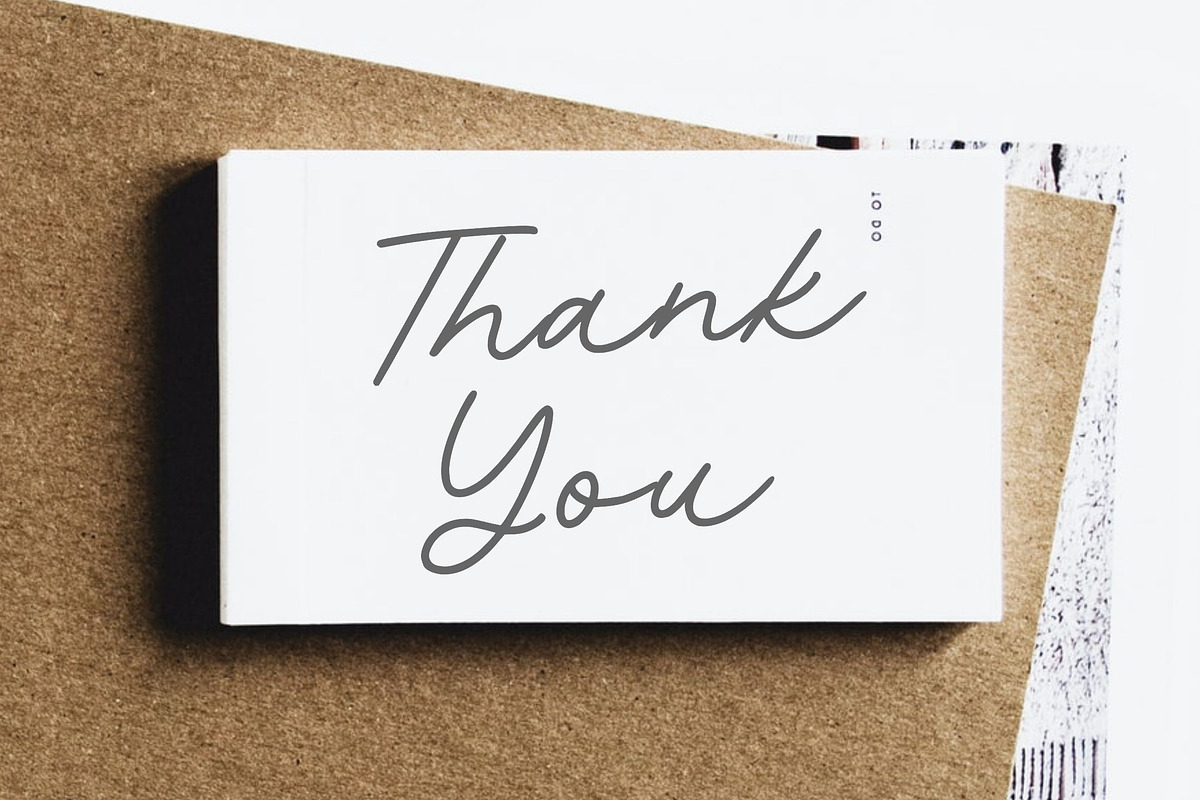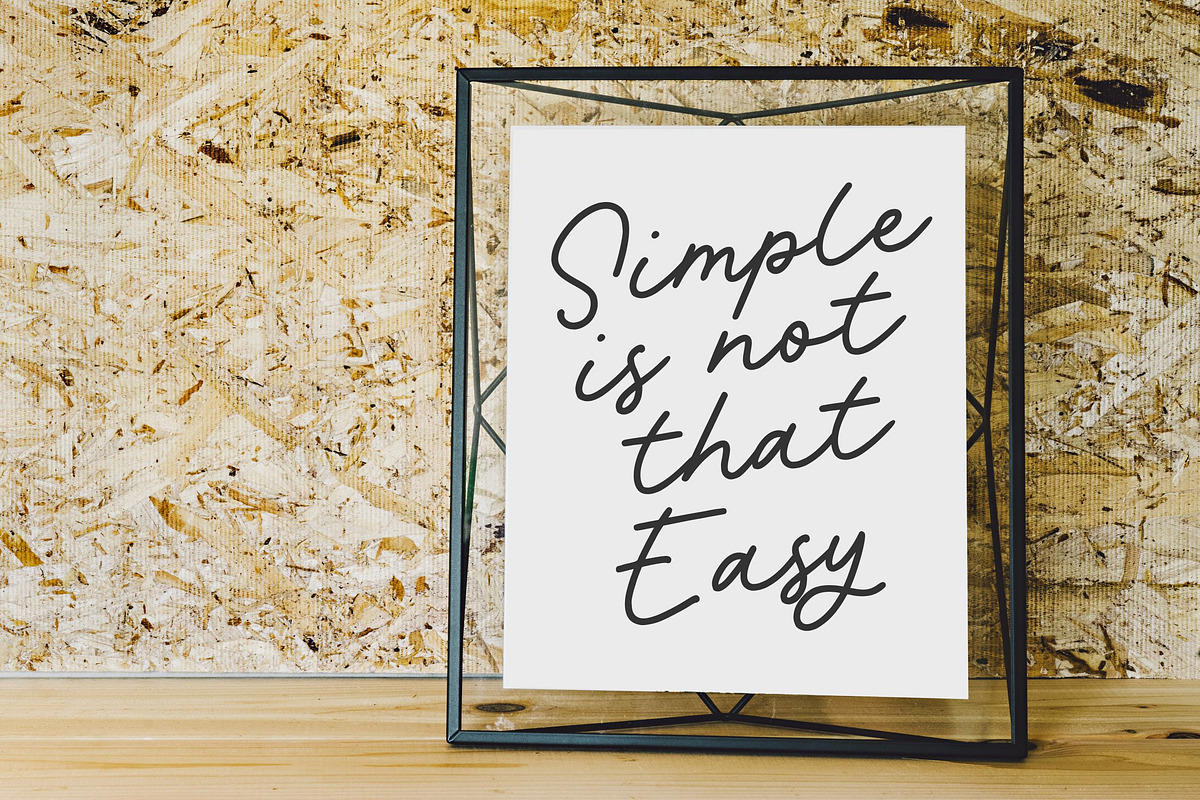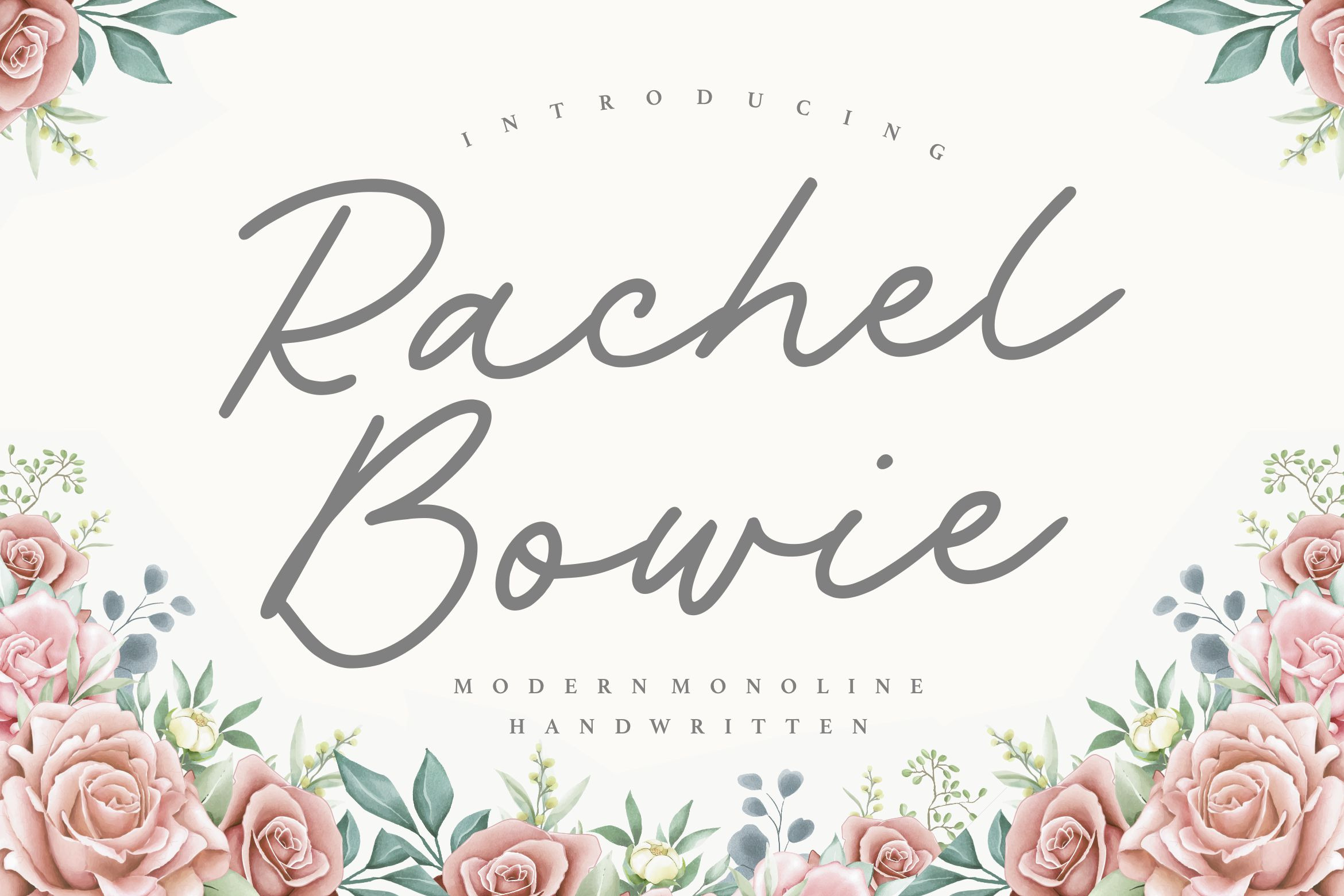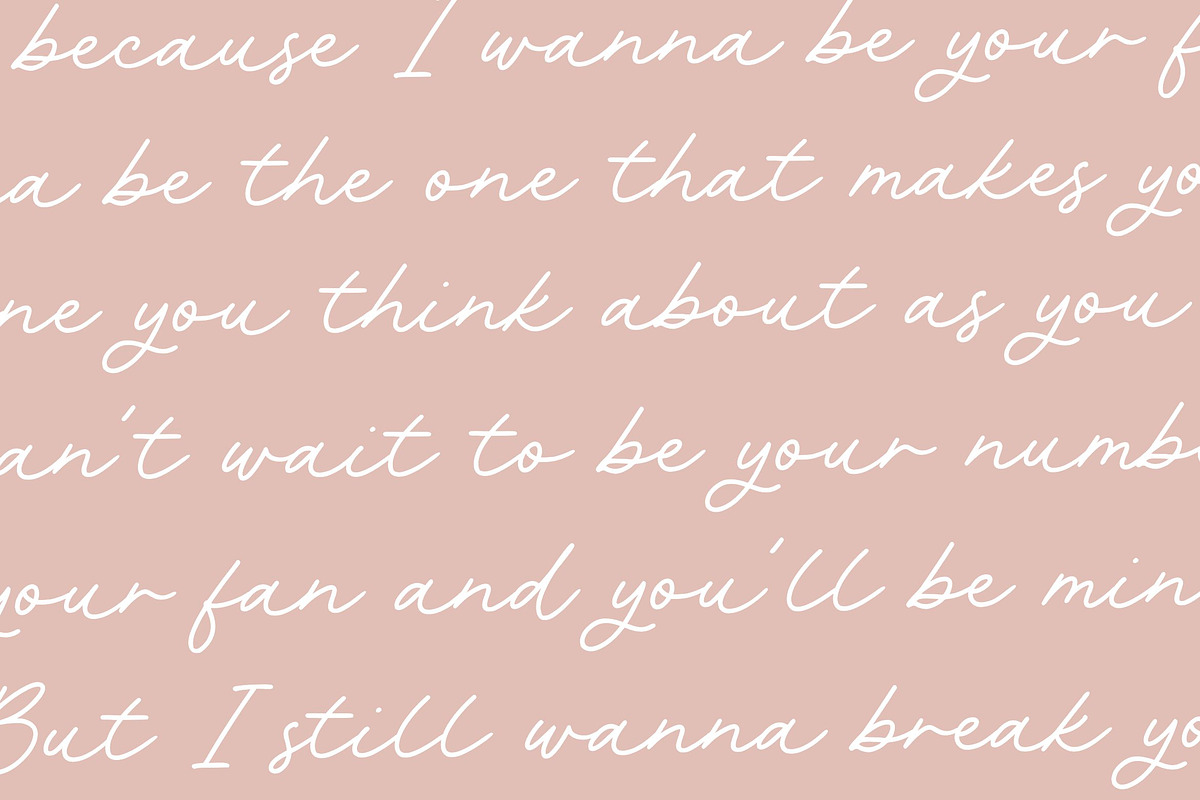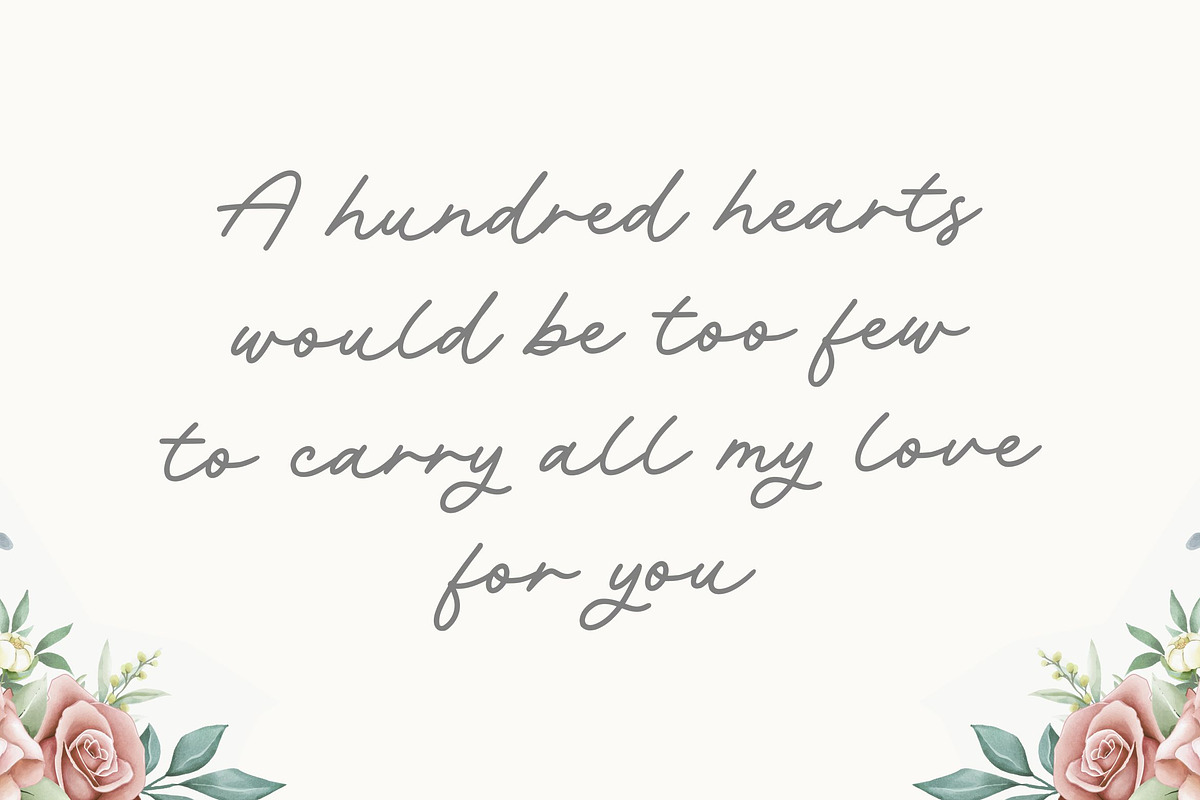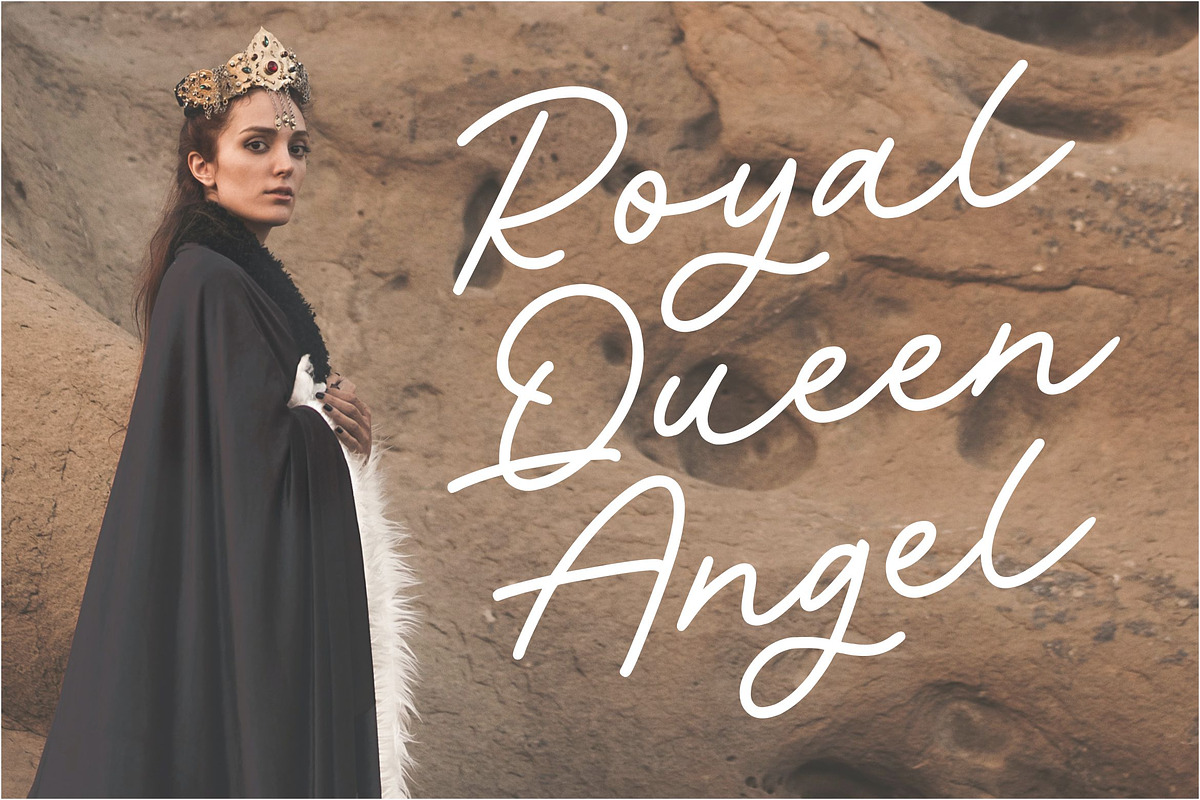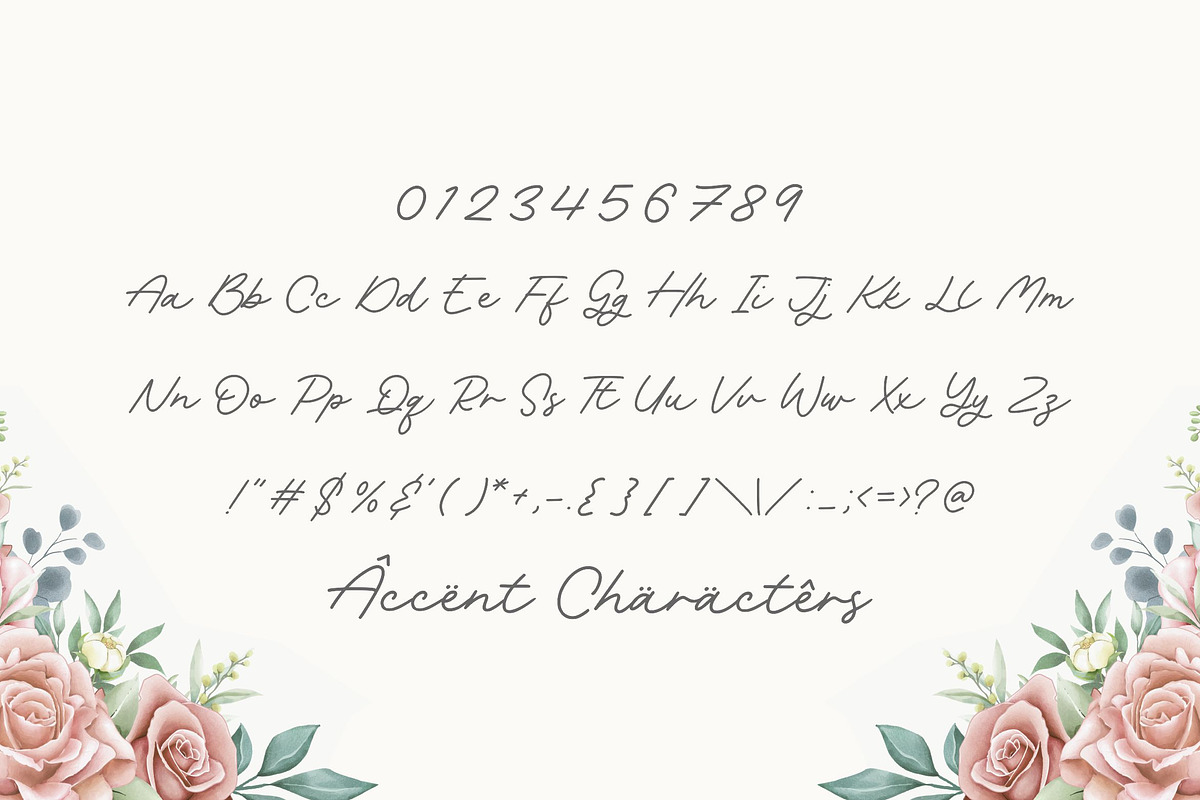
Rachel Bowie - Modern Monoline Font
Proudly Present, Rachel Bowie Font
Rachel Bowie simplifies elegance into one truly outstanding handwritten font. It maintains its classy calligraphic influences while feeling contemporary and fresh. This versatility will appeal to a wide range of crafty ideas, from letterheads and titles, to stationery.